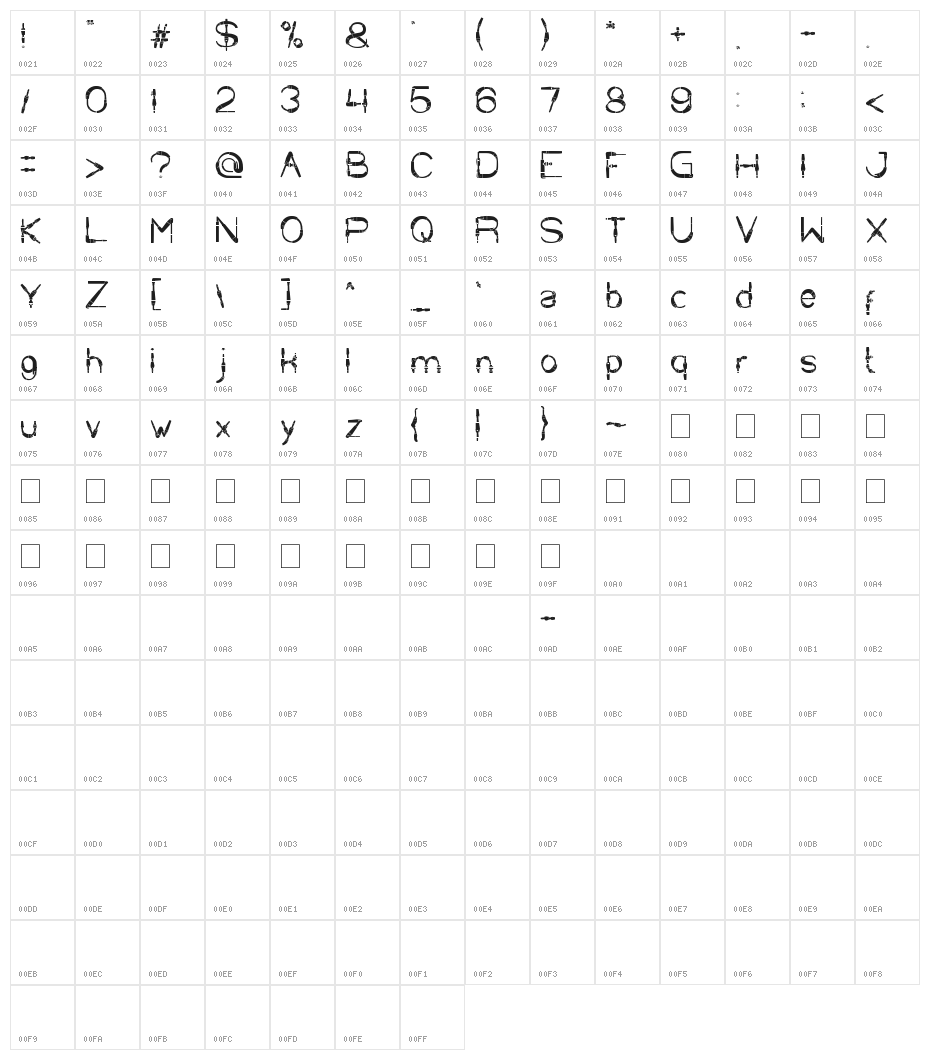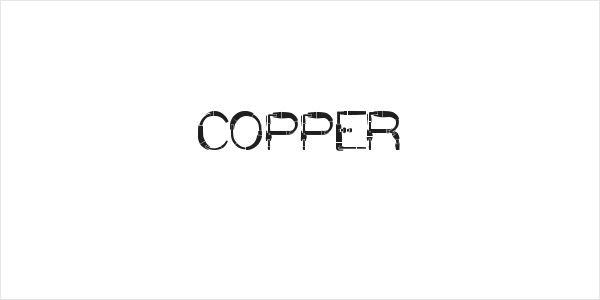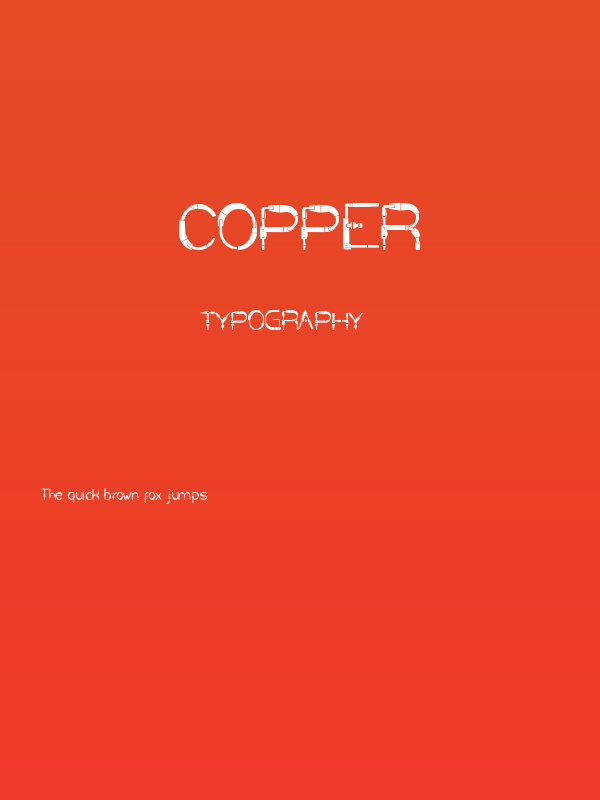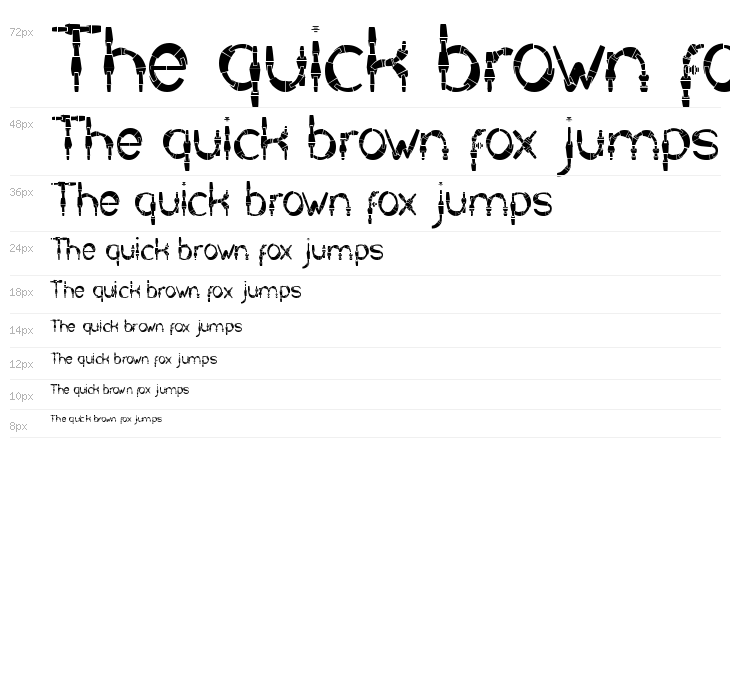
COPPER Font
COPPER Description
This font features a unique and artistic design with a distressed, fragmented appearance. Each character is composed of bold strokes that are interrupted by irregular gaps, giving it a deconstructed and modern aesthetic. The uppercase and lowercase letters maintain a consistent style, with sharp angles and a geometric influence. The numbers and special characters follow the same fragmented pattern, ensuring a cohesive look across all glyphs. This font's distinctive style makes it stand out, ideal for creative and unconventional design projects.
| Overall Style | Modern, Artistic |
| Proposed Projects | Ideal for album covers, posters, branding for edgy or modern companies, and any project requiring a bold, artistic statement. |